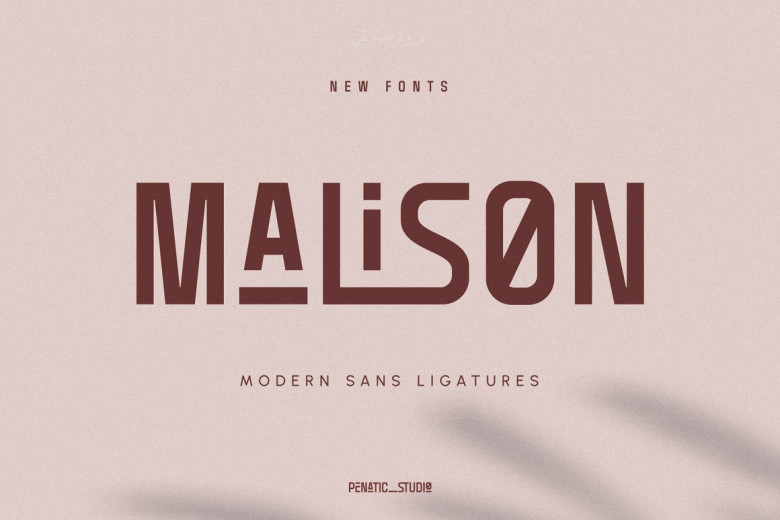
Malison Font
MALISON is an unicase sans-serif typeface which uses many alternative letters and other ligatures to give users more choices when it comes to letter variations. MALISON features a subtle design while still remaining sturdy enough for standalone use – ideal for branding purposes, wedding designs, social media posts and much more!
Malison Sans Serif Font